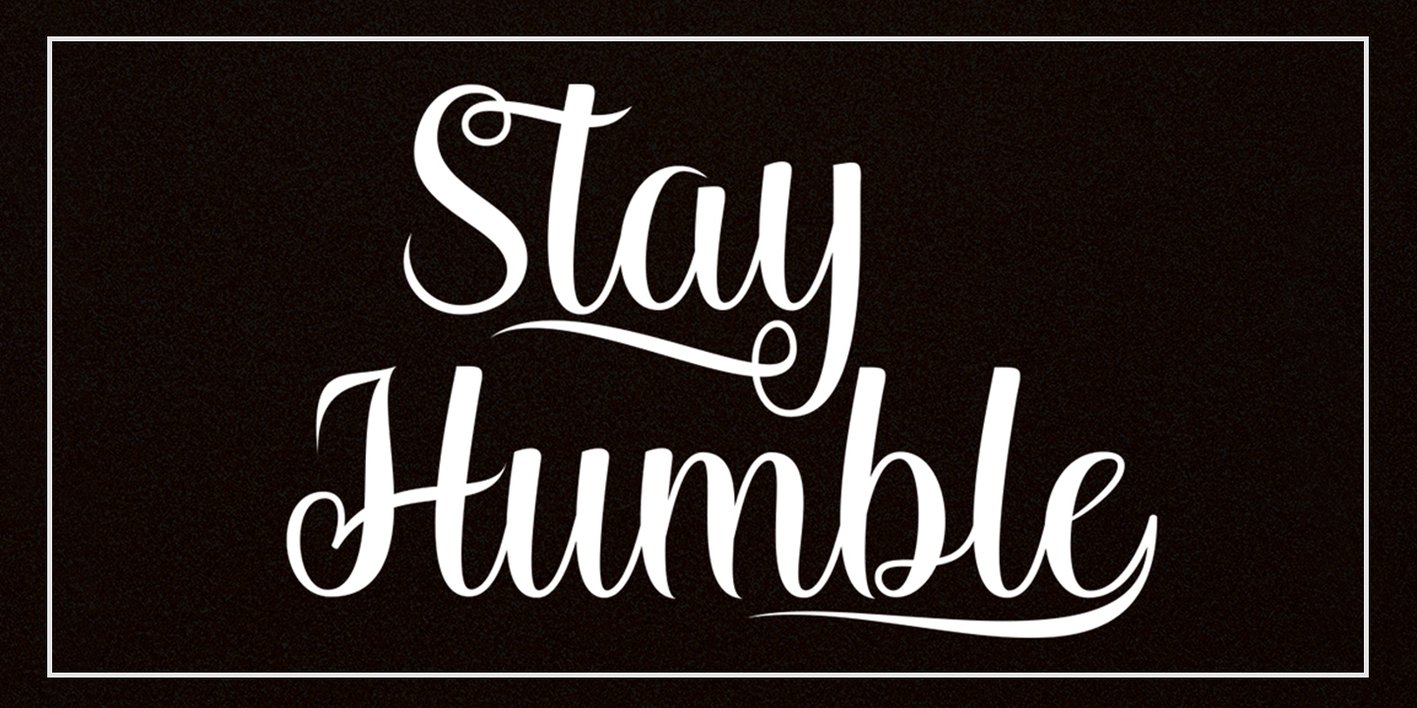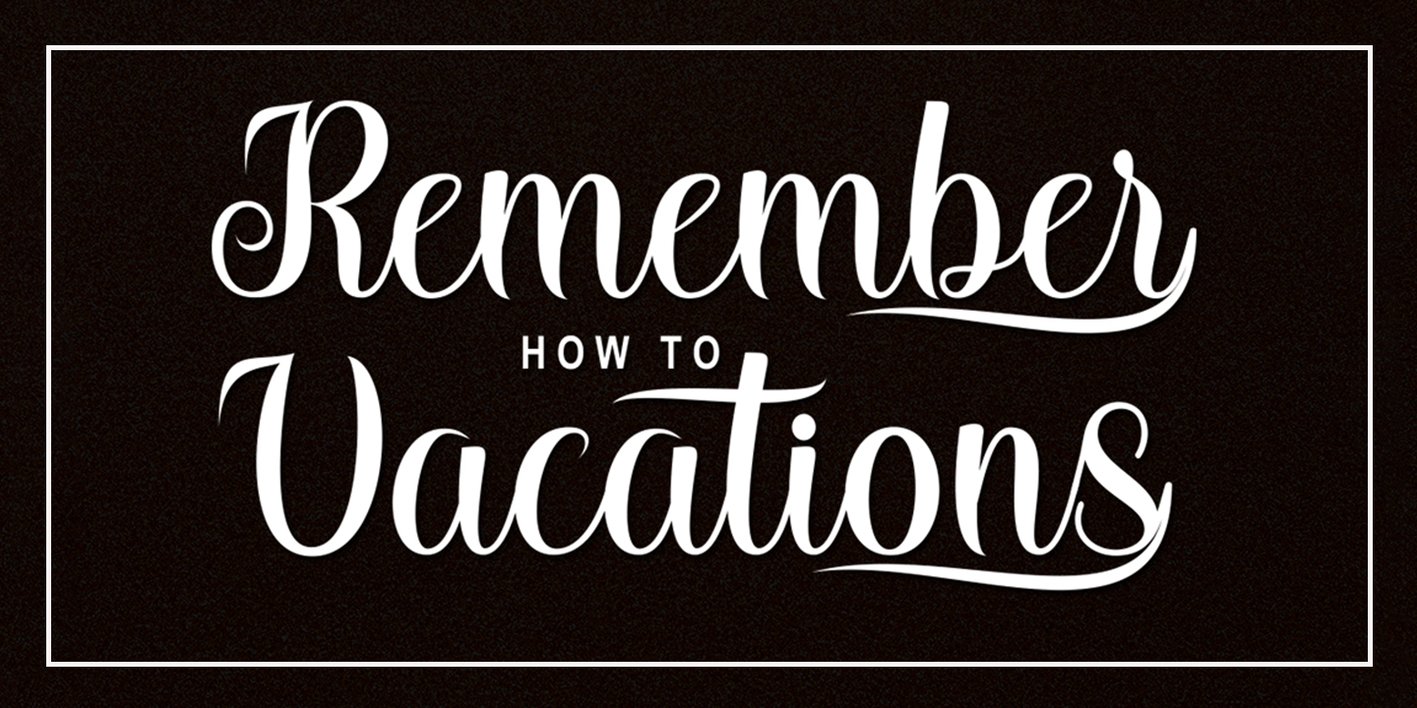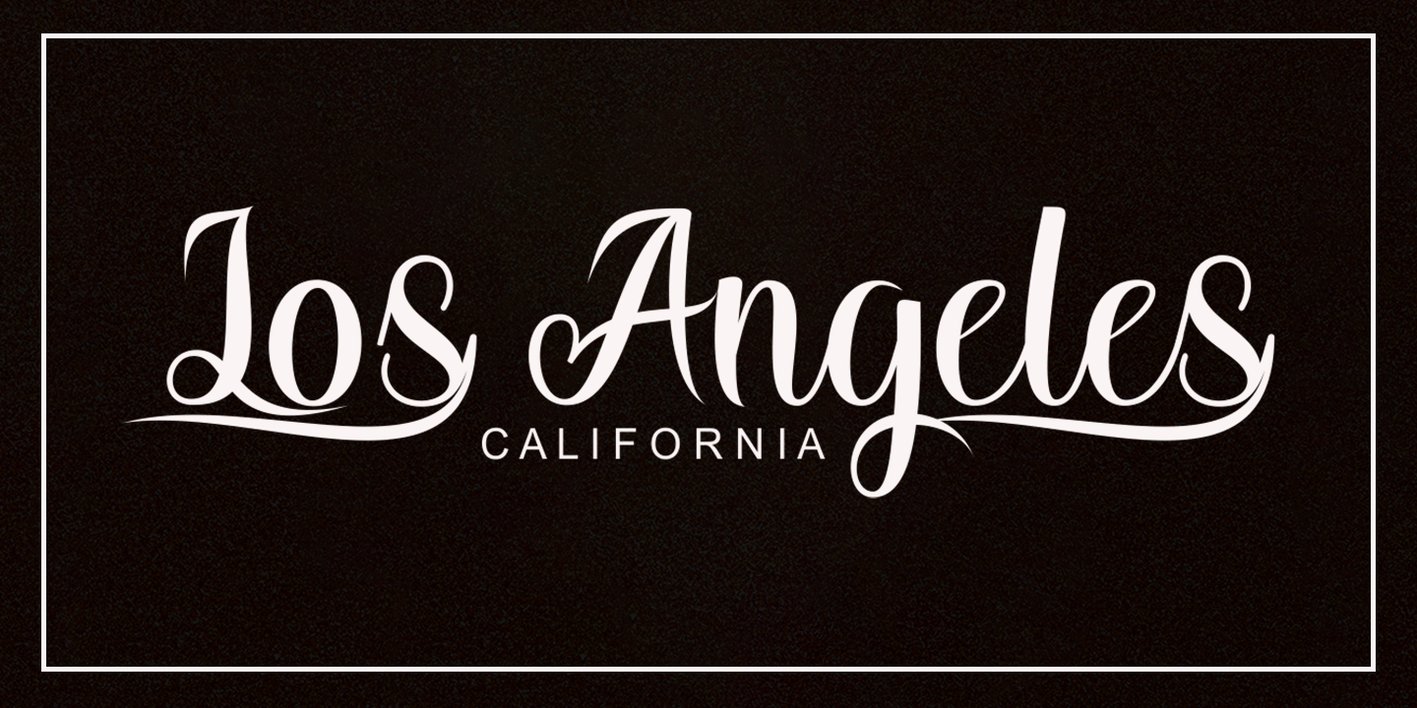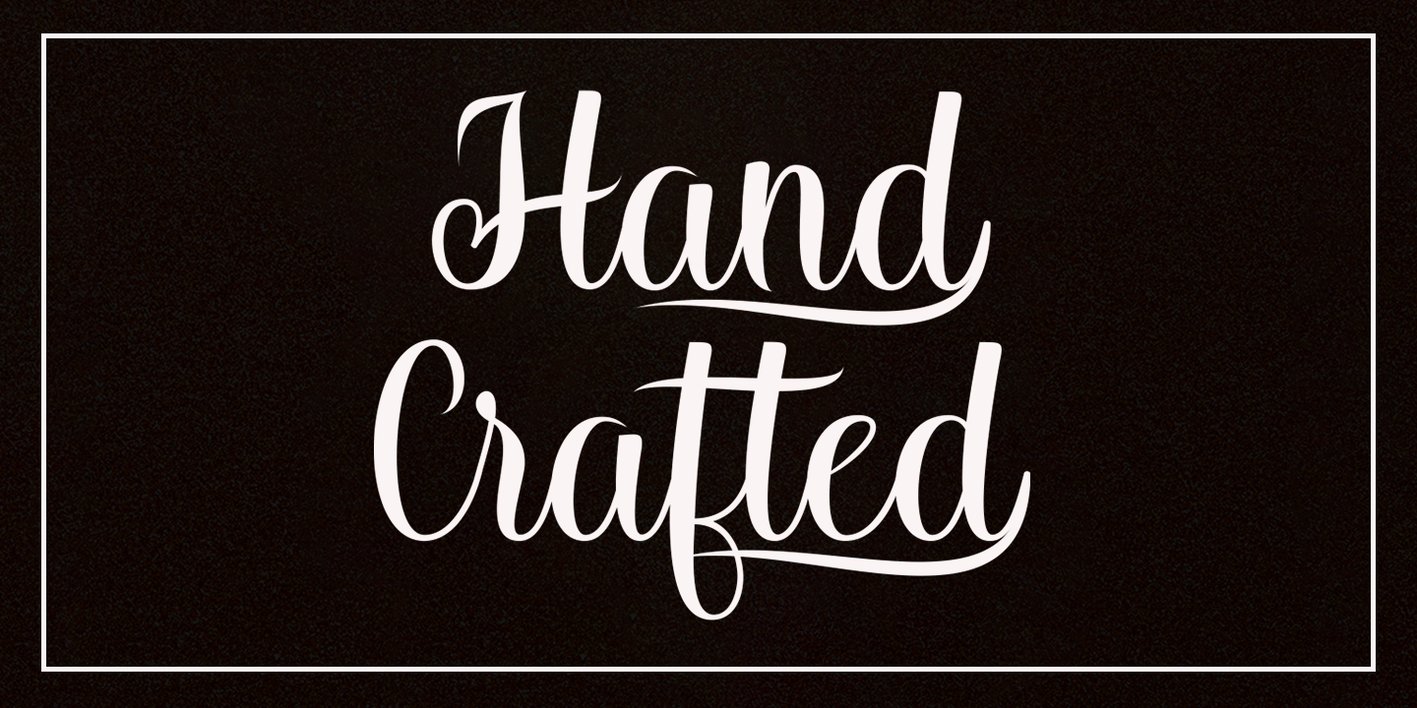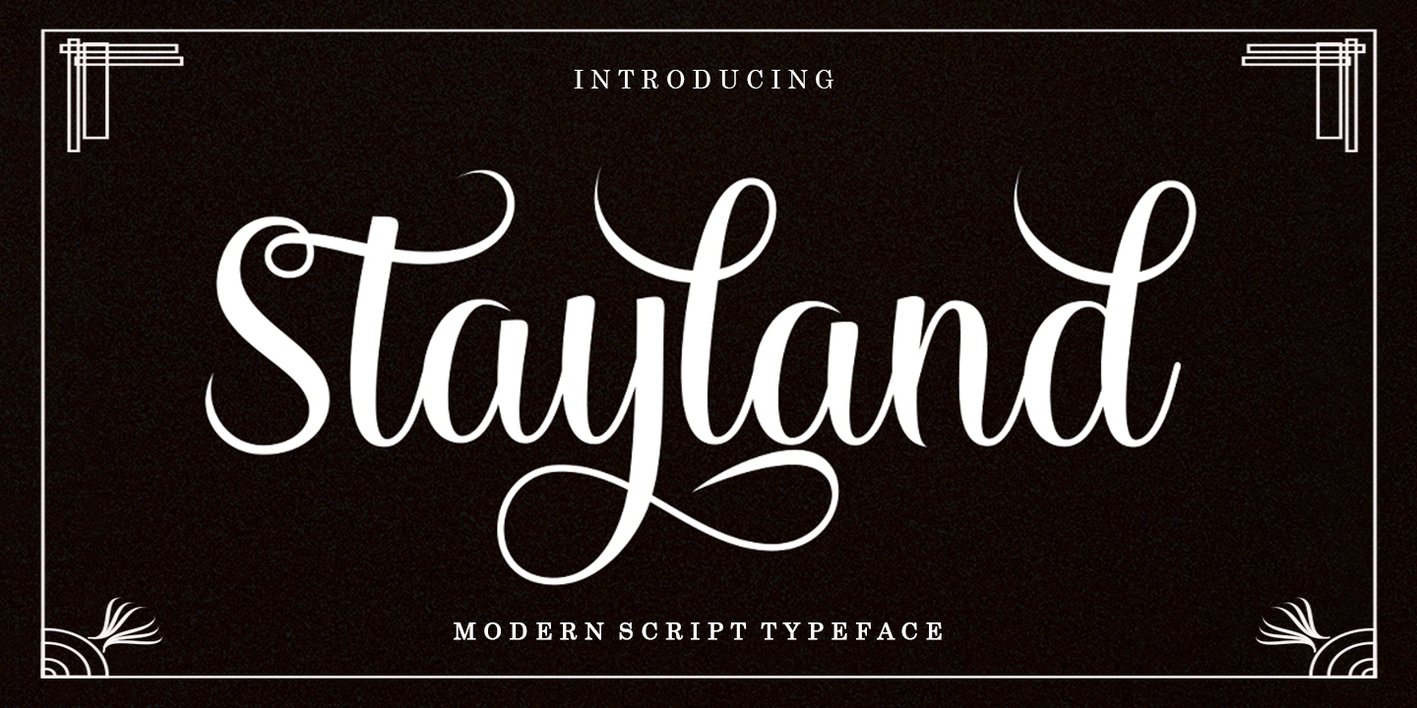
Stayland Font
Stayland is a modern script typeface. It contains a complete set of lowercase, uppercase, alternative, ligatures, punctuation, numbers, and multilingual support. Works in harmony with other fonts to make calligraphy creations. Stayland is suitable for various purposes: logos, wedding invitations, titles, signatures, t-shirts, letterheads, signboards, labels, posters etc. How to access all alternative characters, using Windows Character Map with Photoshop: https://www.youtube.com/watch?v=Go9vacoYmBw How to access all alternative characters using Adobe Illustrator: https://www.youtube.com/watch?v=XzwjMkbB-wQ